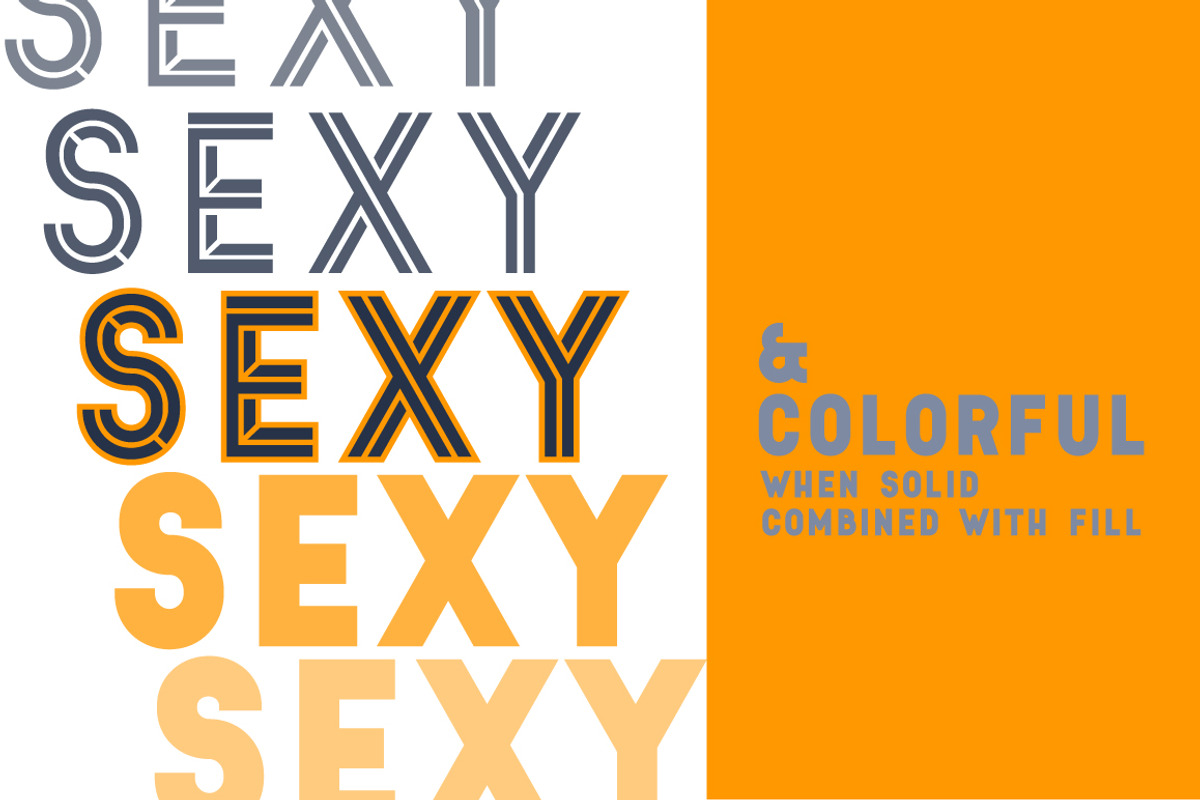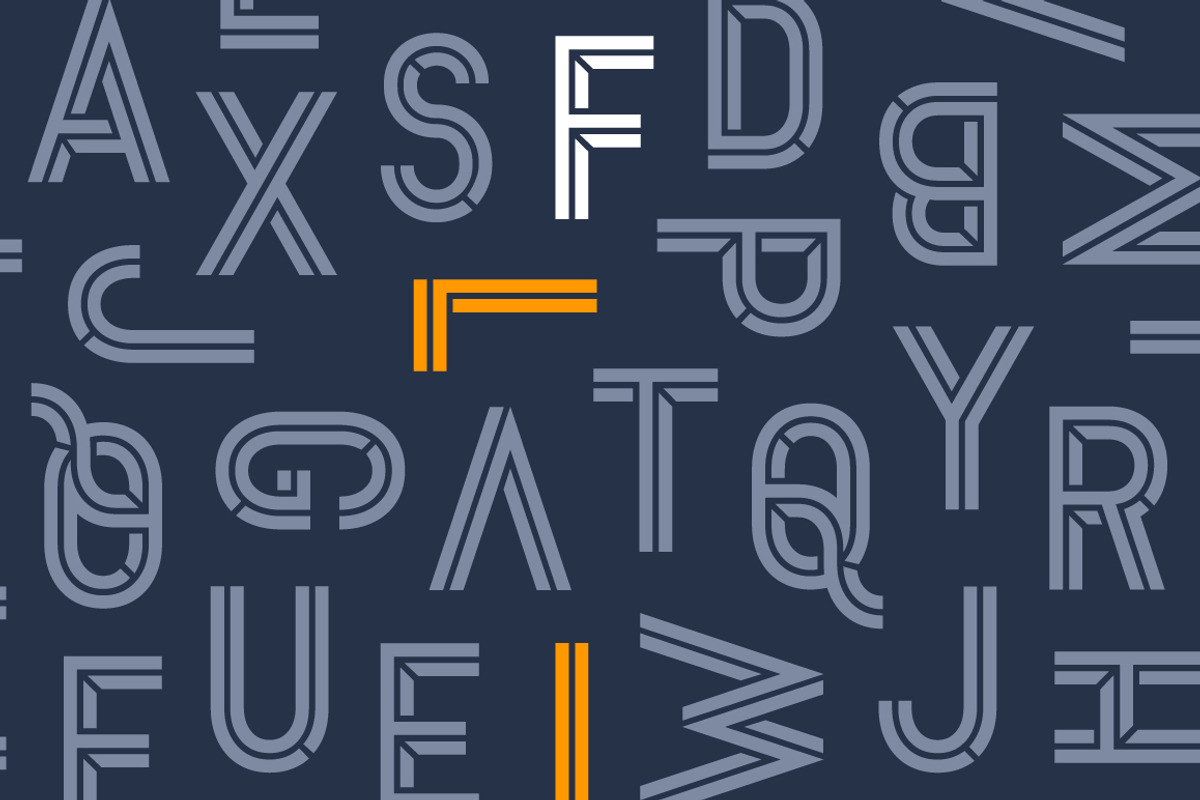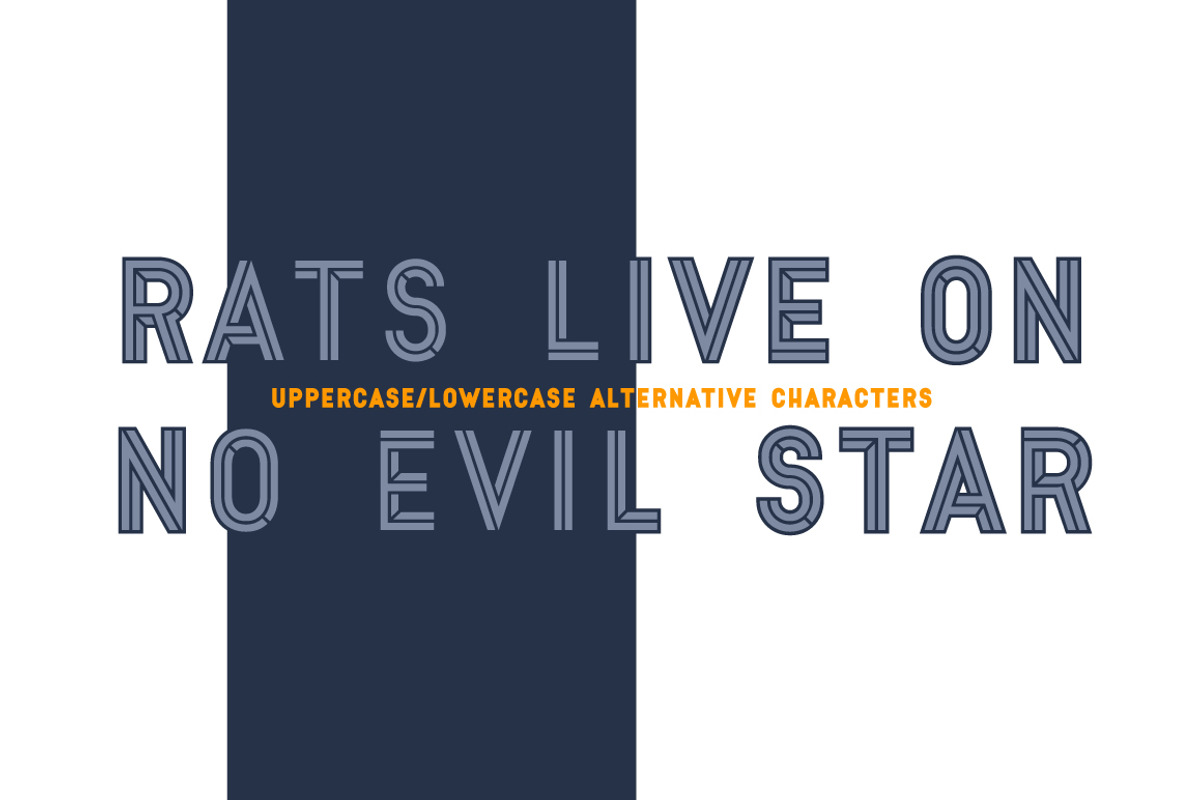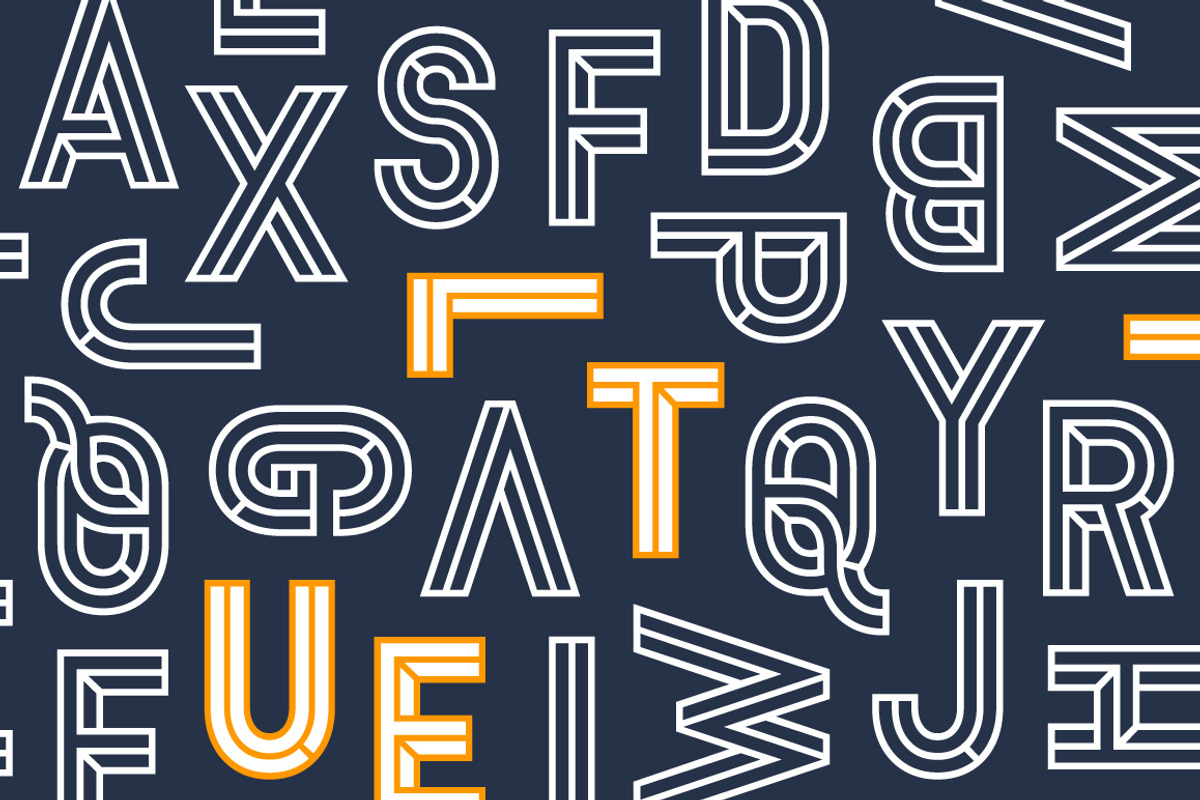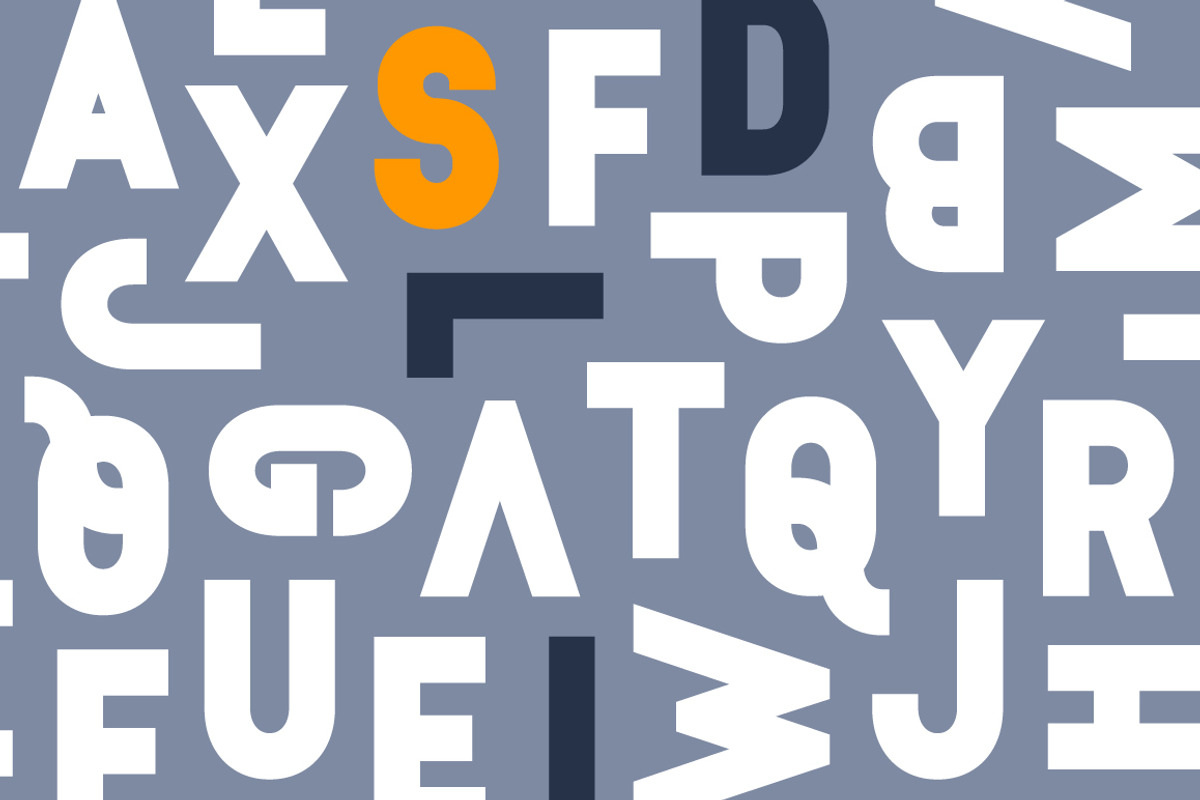
Epilepsja - a layered display family
Epilepsja - a layered display family by FONT-Bud is a font selected for branding, posters, packaging, typography.
- There are alternative uppercase/lowercase characters, digits, diacritics of western, central and southeastern Europe and Africa, punctation
- Epilepsja Fill
- Epilepsja Outline
- Epilepsja Solid
Epilepsja - a layered display family by FONT-Bud fits naturally into Branding, posters, packaging, typography.